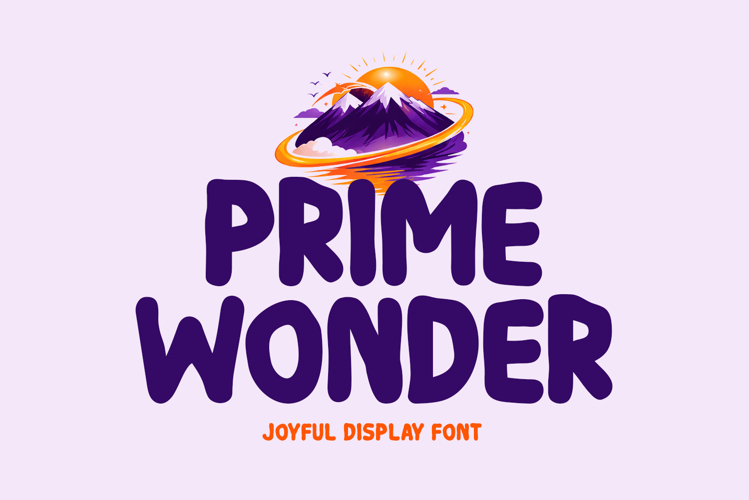
Introducing Prime Wonder!
Prime Wonder Font is a bold and playful display font designed to bring imagination, creativity, and joyful energy into your designs. With its rounded shapes, friendly letterforms, and smooth decorative style, this font creates a fun and magical atmosphere that instantly grabs attention. Prime Wonder font is perfect for children’s designs, storybook titles, posters, branding, logos, packaging, and creative headlines that need a lively and adventurous personality. Its expressive characters make every word feel cheerful, unique, and full of wonder.